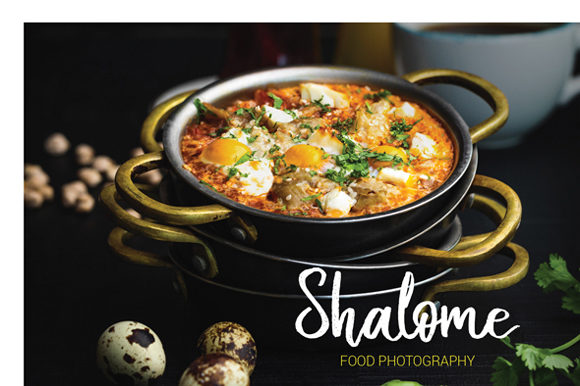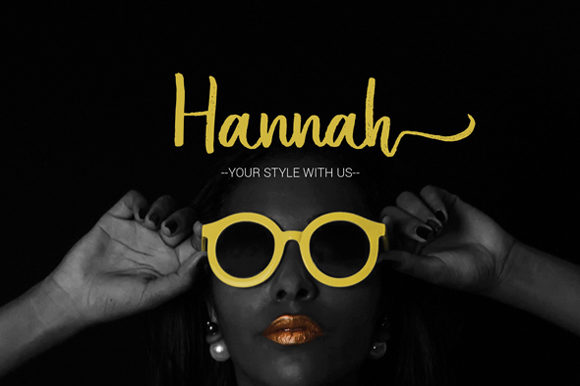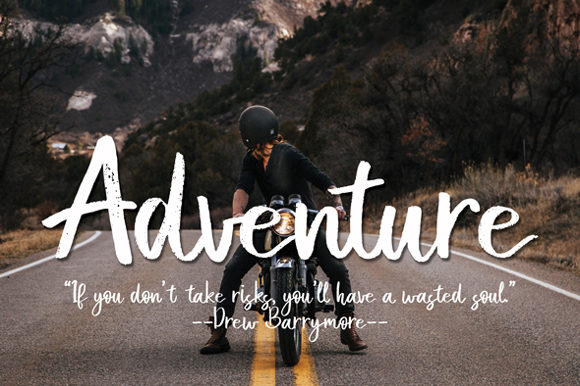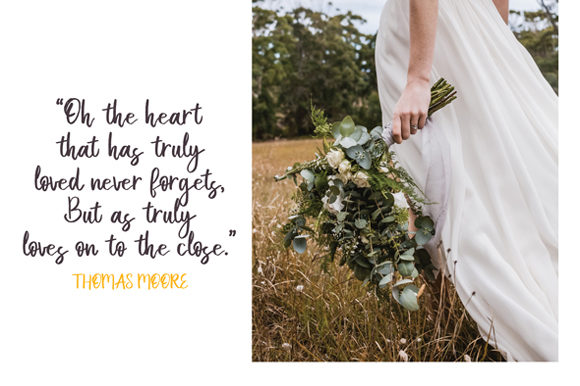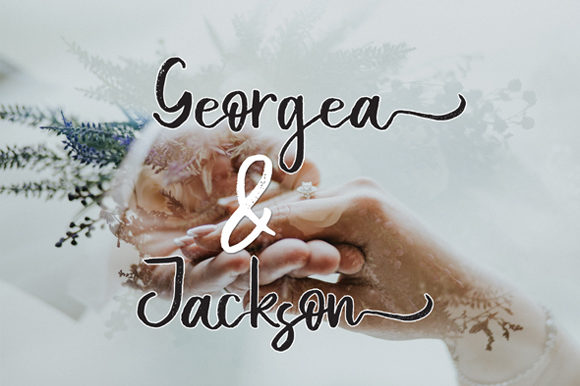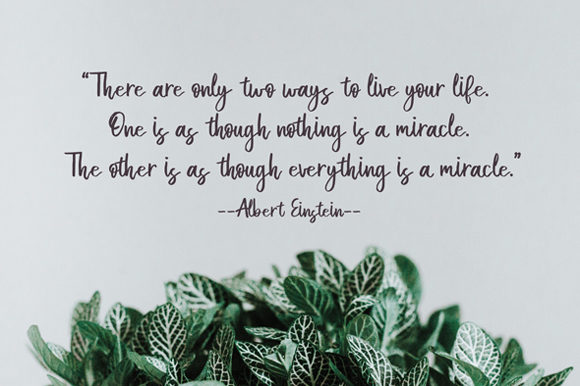
The Flamingo Font: A Cute and Friendly Script to Elevate Your Designs
I still remember the time I was working on a DIY project for a client’s wedding invitation. I had the perfect design concept, but I was struggling to find a font that captured the right tone. The font had to be playful, yet elegant; casual, yet sophisticated. That’s when I stumbled upon the Flamingo Font. With its incredibly friendly feel and gorgeous swashes, it instantly became the perfect fit for my project. In this article, I’ll share my experience with the Flamingo Font, its features, and how to make the most of it in your designs.
A Personal Review of Flamingo Font
What I Love About Flamingo Font ✨
• ✅ The friendly and approachable feel of the font makes it perfect for creative projects, such as DIY crafts, invitations, and social media graphics.
• ✨ The gorgeous swashes and ligatures add a touch of elegance and sophistication to any design.
• ✅ The font is incredibly versatile and can be used for a wide range of projects, from calligraphy scripts to Instagram graphics.
• ✅ The font is easy to read, even in smaller sizes, making it perfect for body text or captions.
While the Flamingo Font is an amazing script, there are a few things to keep in mind:
• 🤔 The font may not be the best choice for very formal or traditional designs, as it has a more casual and playful feel.
• ⚠️ Some of the swashes and ligatures may not work well in smaller sizes or when used in combination with other fonts.
The Story Behind Flamingo Font
The Flamingo Font was designed by a team of creatives who wanted to create a script that was both elegant and approachable. The font was inspired by the beauty of handwritten scripts and the playfulness of modern calligraphy. The designers aimed to create a font that would be perfect for creative projects, such as DIY crafts, invitations, and social media graphics.
Q: What is the Flamingo Font best used for?
A: The Flamingo Font is best used for creative projects, such as DIY crafts, invitations, and social media graphics, where a friendly and approachable feel is desired.
Q: Is the Flamingo Font easy to read?
A: Yes, the Flamingo Font is easy to read, even in smaller sizes, making it perfect for body text or captions.
Q: Can I use the Flamingo Font with other fonts?
A: Yes, the Flamingo Font can be used in combination with other fonts, but it’s best to choose fonts that complement its friendly and approachable feel.